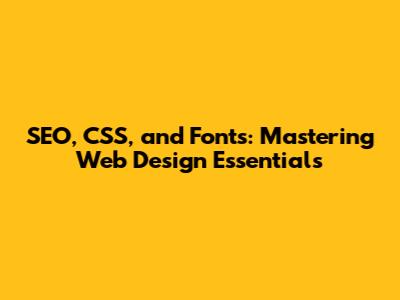
- Title tags: These are the titles that appear in search results. Make sure they're clear, concise, and include relevant keywords.
- Meta descriptions: These are short descriptions that appear below your title tag in search results. They should entice users to click on your site.
- Header tags (H1-H6): Use these to structure your content logically and include keywords in your headings.
- Image alt text: Add descriptive alt text to your images. This helps search engines understand what your images are about, which is especially important for users who are visually impaired.
- Website speed: Make sure your website loads quickly. Slow loading times can hurt your rankings.
- Mobile-friendliness: Ensure your website is responsive and looks good on all devices.
- XML sitemaps: Create an XML sitemap to help search engines understand your website's structure.
- Robots.txt file: Create a robots.txt file to tell search engines which pages you want to be crawled or not.
- Selectors: Selectors are used to target the HTML elements you want to style. For example, if you want to style all the paragraphs on your page, you would use the
pselector. - Properties: Properties are the specific aspects of the HTML element you want to style, like the color, font, or size.
- Values: Values are the specific settings for each property. For example, if you want to change the text color to red, you would set the
colorproperty tored.
Hey guys! Let's dive into the awesome world of web design, where SEO, CSS, and fonts reign supreme. We're going to break down how these three crucial elements work together to create websites that not only look fantastic but also rank high in search results. Understanding these core concepts is like having the secret recipe for online success. Whether you're a seasoned web designer or just starting out, this guide will equip you with the knowledge to make your websites shine. So, buckle up, and let's get started!
SEO: The Foundation of Online Visibility
Alright, first things first: SEO, or Search Engine Optimization. Think of SEO as the art and science of making your website visible to search engines like Google. When people search for something, SEO is what determines where your website appears in the search results. The higher you rank, the more likely people are to click on your site. This means more traffic, more leads, and ultimately, more success for your online endeavors. It's like having a prime spot on the digital billboard of the internet.
Now, how do we make that happen? Well, it's a combination of different strategies. First, we have keywords. These are the words and phrases people type into search engines. You need to identify the keywords relevant to your website's content and incorporate them naturally throughout your site. Think about what people would search for to find your business or the information you provide. Using these keywords in your titles, headings, and body content is essential. But don't stuff your site with keywords! Overuse can actually hurt your rankings. The goal is to write naturally and provide value to your readers, while also subtly optimizing for search engines.
Then, we have on-page optimization. This refers to optimizing elements within your website itself. This includes things like:
Next, let's talk about off-page optimization. This involves activities that happen outside your website. This is things like building backlinks. These are links from other websites to yours. Backlinks are like votes of confidence for your website. The more high-quality backlinks you have, the more authority your site will have in the eyes of search engines. Guest blogging, social media marketing, and online directory listings are all great ways to build backlinks.
Finally, we have technical SEO. This ensures that your website is technically sound and easy for search engines to crawl and index. This includes things like:
SEO is a constantly evolving field, but by focusing on these core principles, you can significantly improve your website's visibility and attract more organic traffic. Remember, the goal is to provide valuable content that satisfies user intent while optimizing your site for search engines. It's a long-term strategy, but the rewards are well worth the effort!
CSS: Crafting the Visual Appeal of Your Website
Alright, let's move on to the next superstar of web design: CSS, which stands for Cascading Style Sheets. CSS is the language used to style the look and feel of your website. It controls everything from colors and fonts to layout and responsiveness. Think of CSS as the makeup artist for your website, making it visually appealing and user-friendly. Without CSS, your website would be a plain, unstyled collection of text and images. Yikes!
CSS works by separating the content of your website (the HTML) from its presentation (the CSS). This separation is super important. It means you can easily change the look of your entire website by modifying just a few lines of CSS code. This makes it much easier to maintain and update your site's design. Imagine having to manually change the font size on every single page of your website. Nightmare, right? CSS saves the day!
Here's how CSS works:
Here's a simple example:
p { color: red; font-size: 16px; }
In this example:
pis the selector, which targets all paragraph elements.colorandfont-sizeare the properties.redand16pxare the values.
CSS can be applied in three main ways:
- Inline styles: These are styles applied directly to an HTML element using the
styleattribute. - Internal styles: These are styles defined within the
<style>tag in the<head>section of your HTML document. - External stylesheets: These are styles defined in a separate
.cssfile and linked to your HTML document using the<link>tag. External stylesheets are the most common and recommended approach, as they allow you to separate the content from the design and make it easier to manage your styles.
Now, let's explore some key CSS concepts:
- Box model: The box model is a fundamental concept in CSS. It describes how each HTML element is treated as a rectangular box with content, padding, borders, and margins. Understanding the box model is crucial for controlling the layout and spacing of your website elements.
- Layout: CSS provides various layout techniques, such as floats, flexbox, and grid, to help you arrange your website elements effectively. Flexbox and grid are modern layout systems that offer powerful and flexible ways to create responsive designs.
- Responsiveness: Creating responsive websites that adapt to different screen sizes is essential in today's mobile-first world. CSS media queries allow you to apply different styles based on the device's screen size or orientation.
- CSS frameworks: CSS frameworks like Bootstrap and Tailwind CSS provide pre-built CSS components and styles that can help you speed up your web design process. They offer a great starting point for beginners and can save you a lot of time and effort.
CSS is a powerful tool that gives you complete control over the visual presentation of your website. By mastering CSS, you can create stunning and user-friendly websites that make a lasting impression on your visitors. It's like having the ability to paint with code! With practice, you'll be styling websites like a pro in no time.
Fonts: The Typography of Web Design
Alright, let's talk about fonts! Fonts are a crucial part of web design because they significantly impact readability, visual appeal, and overall user experience. Choosing the right fonts can make the difference between a website that's engaging and one that's a turn-off. Fonts are like the voice of your website, and you want that voice to be clear, engaging, and on-brand. Selecting the right typography is often a forgotten art but can drastically increase time on the page and conversion rate.
Fonts are more than just pretty letters. They can convey a brand's personality, set the tone of your content, and guide the user's eye through the information. Different fonts have different characteristics and evoke different emotions. Think about the difference between a playful, handwritten font and a clean, professional sans-serif font. Each one is perfect for different types of websites. Finding the right fonts for your specific needs is a crucial design element.
Here are some essential font concepts to keep in mind:
- Font families: These are collections of fonts that share a similar design. Examples include Arial, Times New Roman, and Helvetica. Choosing a font family that matches your website's overall aesthetic is essential.
- Font sizes: Using appropriate font sizes is crucial for readability. Ensure your text is large enough to be easily read on all devices, especially mobile phones. A good rule of thumb is to set a base font size for your body text and adjust it for headings and other elements.
- Font weights: Font weights refer to the thickness of a font. Using different font weights (e.g., normal, bold, light) can help emphasize important text and create visual hierarchy.
- Line height: Line height determines the vertical spacing between lines of text. Ensuring proper line height is essential for readability. Too little space, and the text becomes cramped; too much space, and it looks disjointed.
- Font styles: Font styles include italic and oblique. Use these sparingly for emphasis. Too much italic text can be hard to read.
- Font pairing: Combining different fonts effectively can enhance your website's visual appeal. Choose fonts that complement each other and work well together. Avoid using too many different fonts on one page, as this can create a cluttered look.
Now, where do you find awesome fonts for your website? Well, thankfully, there are tons of options available!
- Google Fonts: This is a fantastic free resource with a vast library of open-source fonts. It's easy to use and a great place to start your font exploration.
- Adobe Fonts: If you have an Adobe Creative Cloud subscription, you get access to a massive library of high-quality fonts.
- Typekit: Another great source for premium fonts, Typekit offers a wide range of font options to choose from.
- Font Squirrel: This site offers free and commercial fonts with a focus on quality.
When choosing fonts, consider your website's brand and target audience. Is your website geared towards a more traditional audience? Perhaps a classic serif font is perfect. Is it for a younger audience? A modern sans-serif might be more appropriate. Don't forget to test how your chosen fonts look on different devices and browsers. You also want to consider how the fonts will load on the site as well. Consider using local fonts to speed up load times and to avoid third-party requests.
Fonts play a vital role in creating a compelling website. By understanding font families, sizes, weights, and pairings, you can choose fonts that enhance your website's readability, visual appeal, and user experience. Remember, the right fonts can make your website shine, while the wrong ones can drive visitors away. So, take the time to choose wisely and unlock the power of typography!
Putting It All Together: SEO, CSS, and Fonts in Harmony
Okay, we've covered the basics of SEO, CSS, and fonts. Now, let's talk about how these three elements work together. It's like a symphony, where each instrument plays a critical role in creating a beautiful piece of music. In web design, these three elements work in similar harmony. To create a successful website, you need to understand how they influence each other.
Let's start with SEO. When you optimize your content with the right keywords, you're helping search engines understand your website and rank it accordingly. But it's not enough to have great content; it also has to be readable and visually appealing. That's where CSS and fonts come in.
CSS allows you to control the look and feel of your website, including the fonts. Choose fonts that are easy to read and complement your brand. Ensure you use appropriate font sizes, line heights, and spacing to enhance readability. The more readable your content is, the better the user experience will be, and the more time visitors will spend on your site. Which in turn, helps your SEO!
When it comes to the technical aspects of SEO, CSS and fonts also play a role. Make sure your website is responsive, meaning it adapts to different screen sizes. This is achieved by using CSS media queries. A responsive website is crucial for mobile SEO, as Google prioritizes mobile-friendly websites.
Also, consider your website's loading speed. Large font files can slow down your site. Optimize your images and minimize your CSS and JavaScript files to improve loading times. If your website loads slowly, it can negatively impact your SEO. So, optimizing your website speed is essential.
Here are some practical tips for harmonizing SEO, CSS, and fonts:
- Use descriptive title tags and meta descriptions: Incorporate relevant keywords and make them visually appealing with CSS styling.
- Structure your content with headings (H1-H6): Use heading tags to create a clear content hierarchy, and style these headings appropriately with CSS to enhance readability.
- Optimize your images: Use descriptive alt text for images, and style them with CSS to match your website's overall design.
- Choose readable fonts: Select fonts that are easy to read and that align with your brand. Use CSS to control font sizes, line heights, and spacing.
- Create a responsive design: Use CSS media queries to ensure your website looks great on all devices.
- Optimize your website speed: Minimize your CSS and JavaScript files, and optimize your images to improve loading times.
By following these best practices, you can create a website that is search engine-friendly, visually appealing, and user-friendly. When you combine the power of SEO, CSS, and fonts, you create a powerful online presence that will attract visitors, engage them, and drive conversions. Remember, it's not just about ranking high in search results. It's about creating a positive user experience that keeps people coming back for more. So, go forth and create amazing websites!